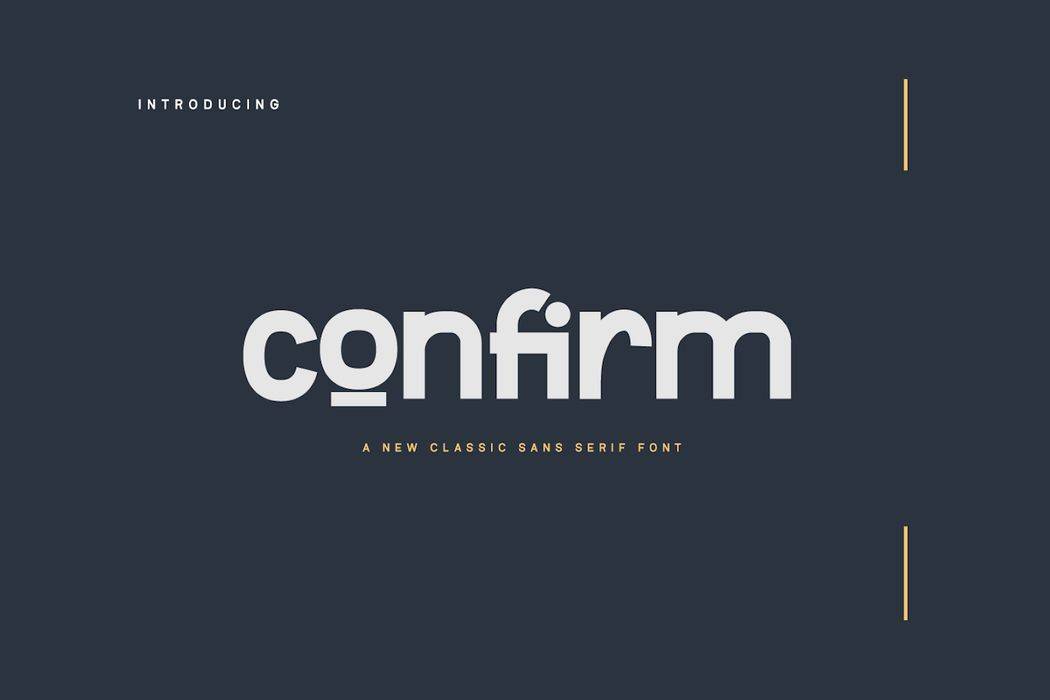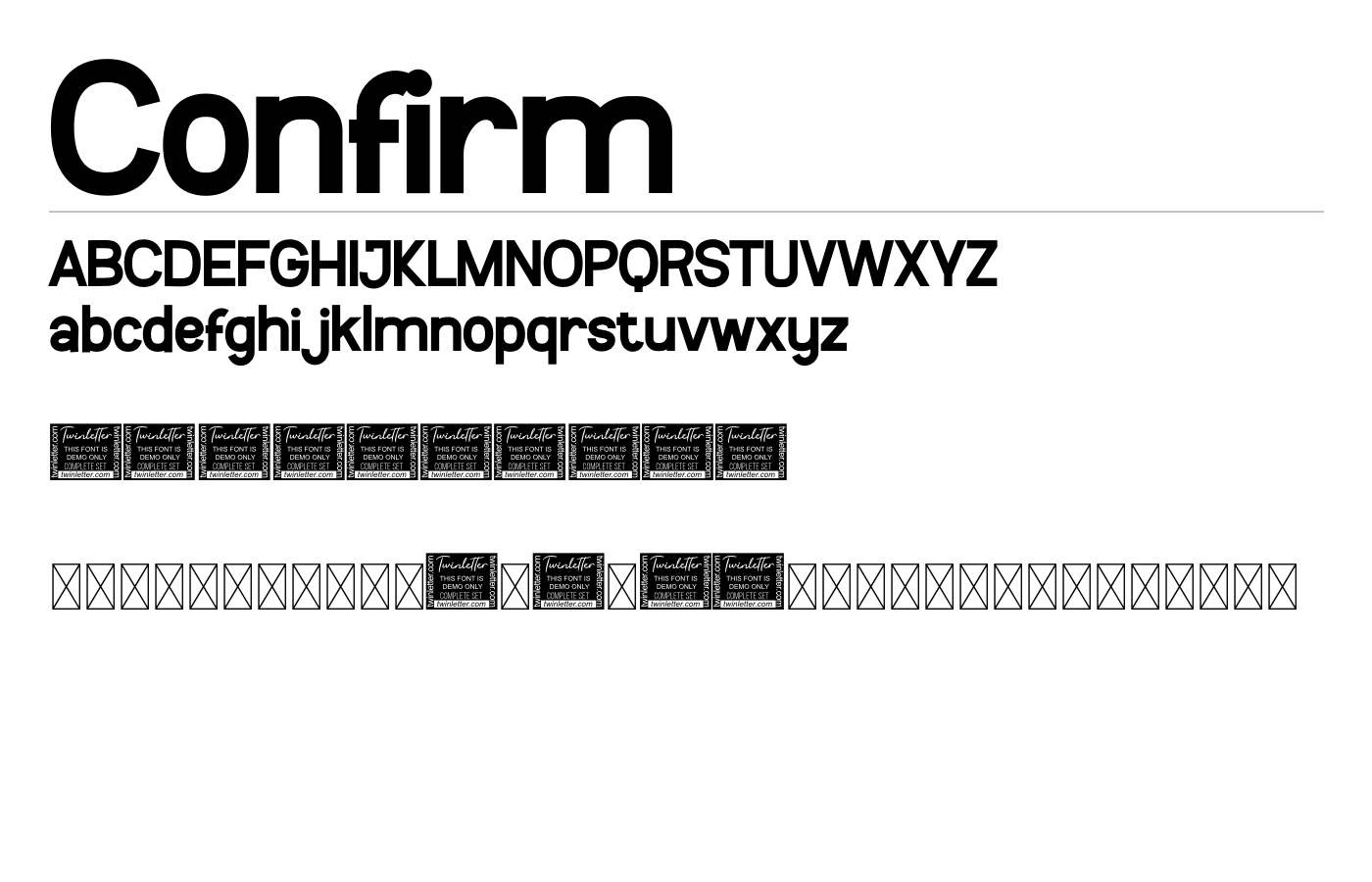
Confirm Font is a bold, modern sans serif typeface with a clean, geometric structure and uniform stroke weight that gives it a strong, confident presence. Its high x-height and slightly condensed letterforms make it highly legible and versatile, ideal for impactful headlines, branding, and editorial use where clarity and assertiveness are key.
Confirm Font
About Confirm Font
| Font family | Confirm Font |